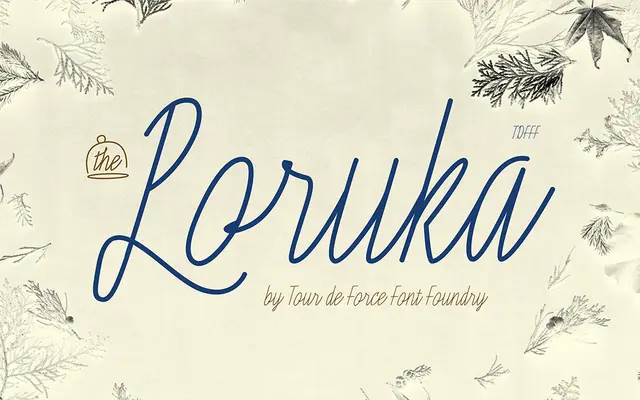
Poruka
Tour de Force · Dušan Jelesijević · 2022
A slanted connected script by Dušan Jelesijević with monoline letterforms, designed for headlines, labels and short display texts.
Built on monoline letter construction with a gently condensed silhouette, Poruka sits between casual handwriting and formal script without leaning too far into either. Two Stylistic Sets offer uppercase letters spanning full font height and handwritten alternates for 'b', 'd', 'h' and 'l', while Discretionary Ligatures add graphic word-forms for terms like 'yes', 'no' and 'ciao'. Suited to invitations, packaging, posters and editorial applications where a script needs to hold its own against heavier visual surroundings.
A slanted, connected script with monoline letterforms and a gently condensed proportion, designed for headline and display use rather than body text.